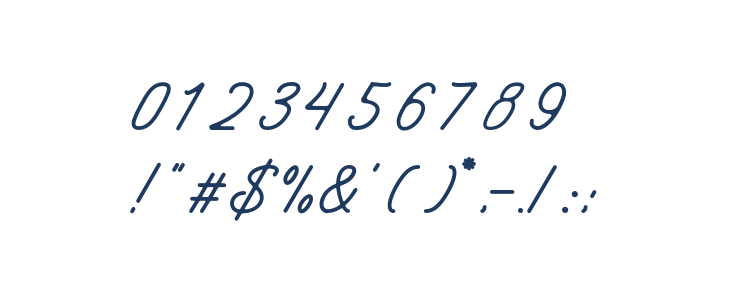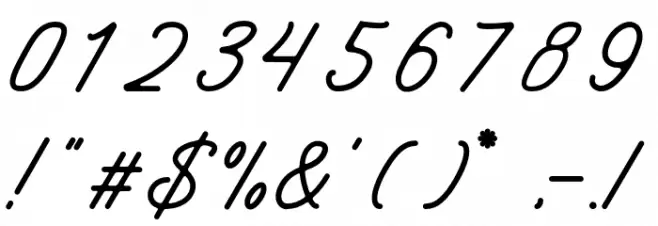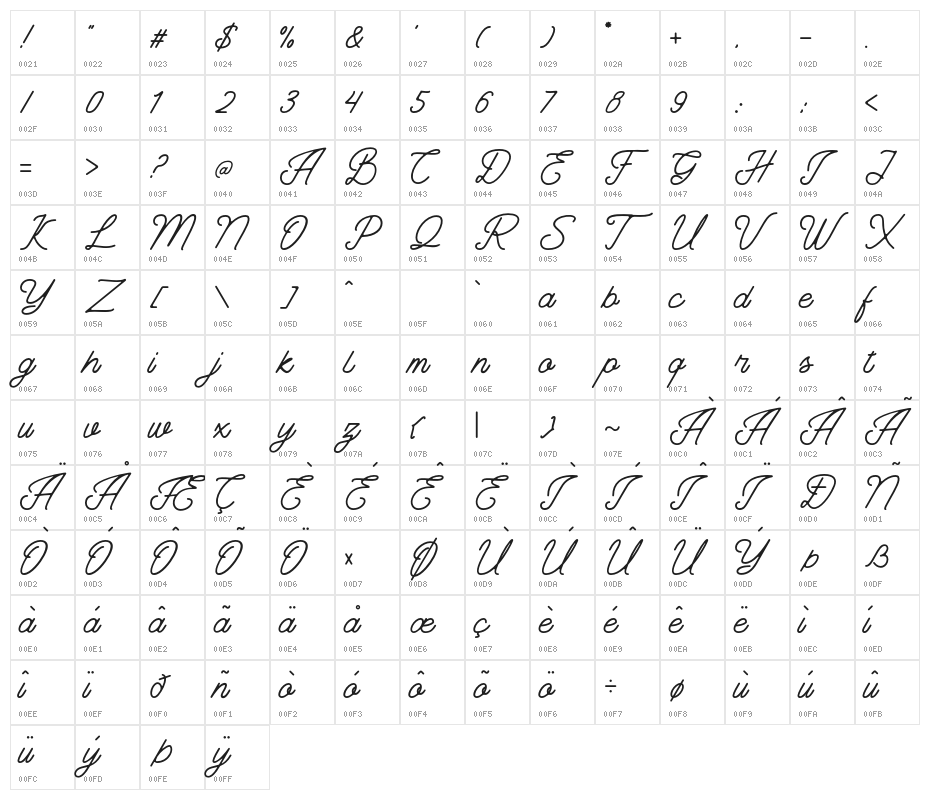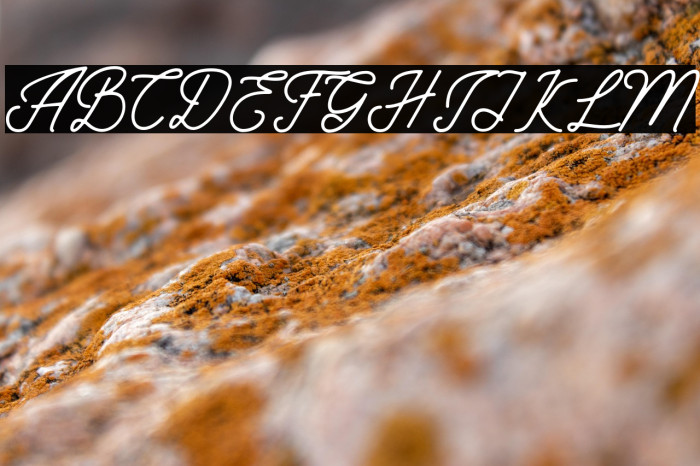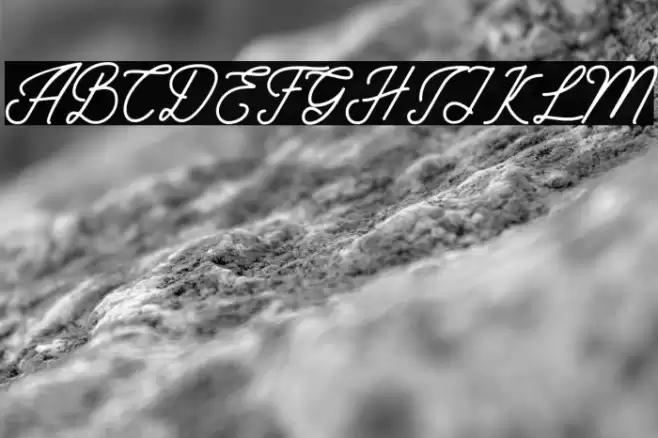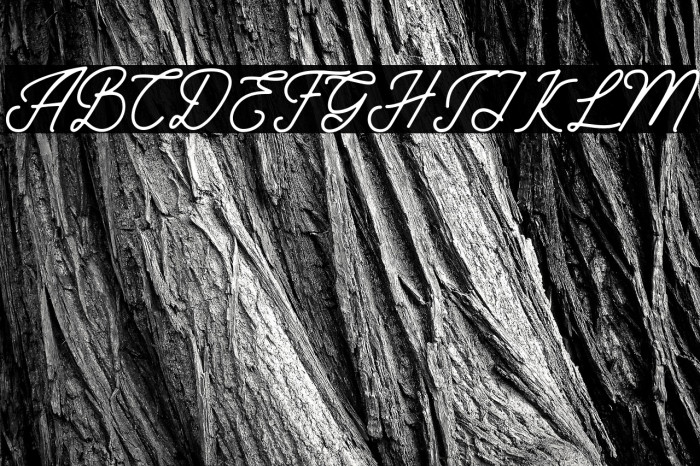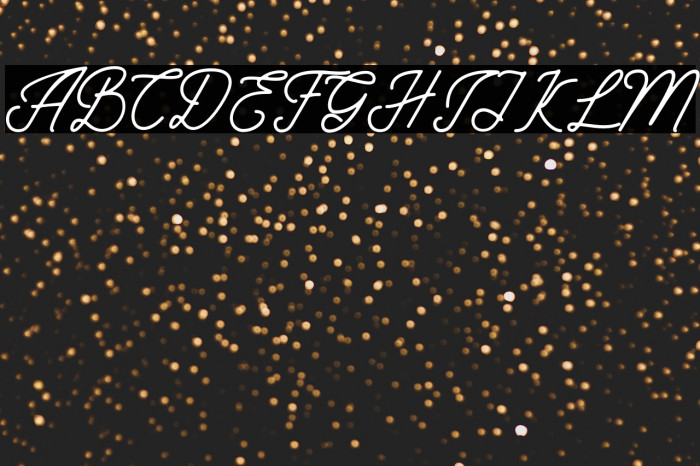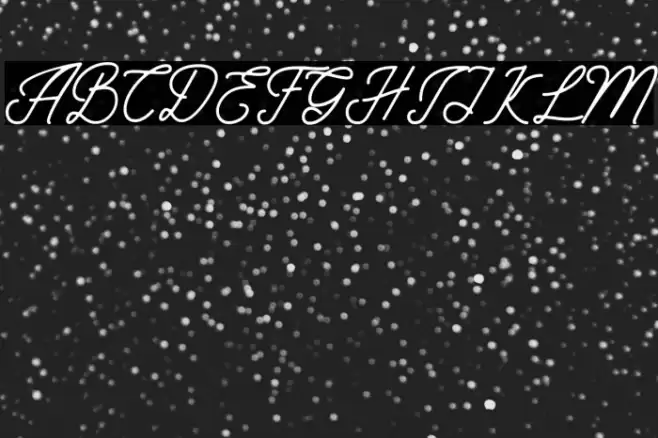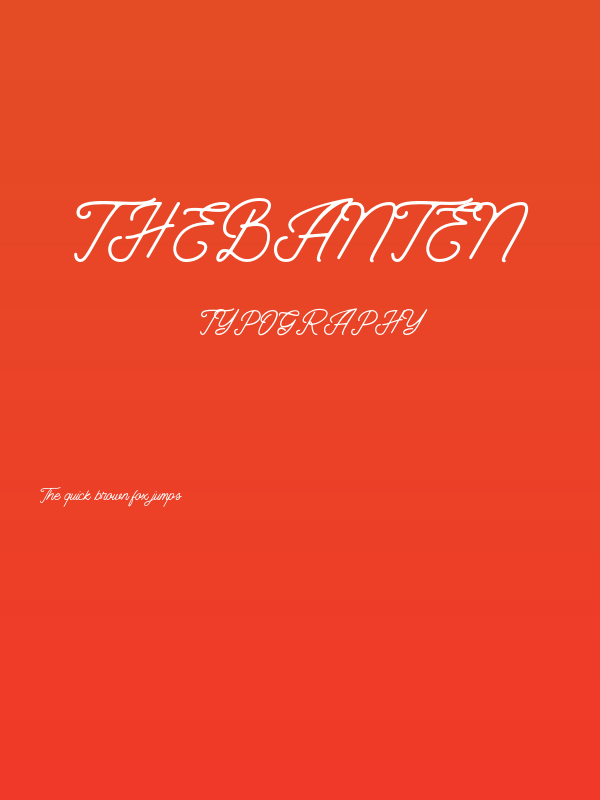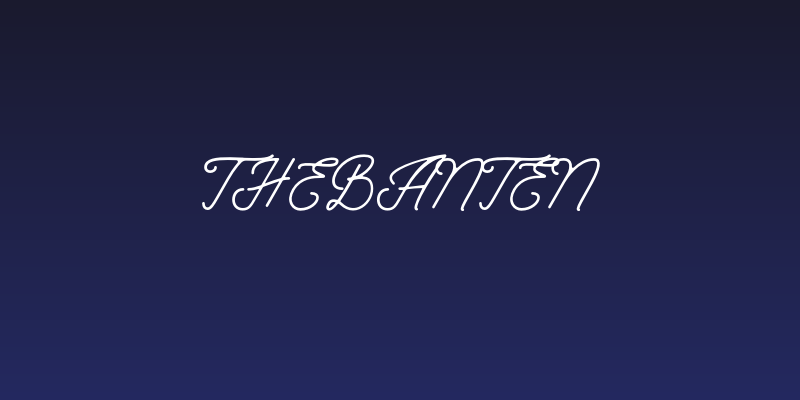
TheBanten Font
TheBanten Description
This elegant script font features fluid, connected strokes that emulate the natural flow of handwriting. The uppercase letters are gracefully elongated, while the lowercase letters maintain a consistent baseline, enhancing readability. The numerals are distinct and clear, complementing the overall cursive style. Special characters are seamlessly integrated, maintaining the font's cohesive appearance. The font's smooth curves and balanced proportions make it suitable for a variety of design applications, offering a sophisticated and personal touch.